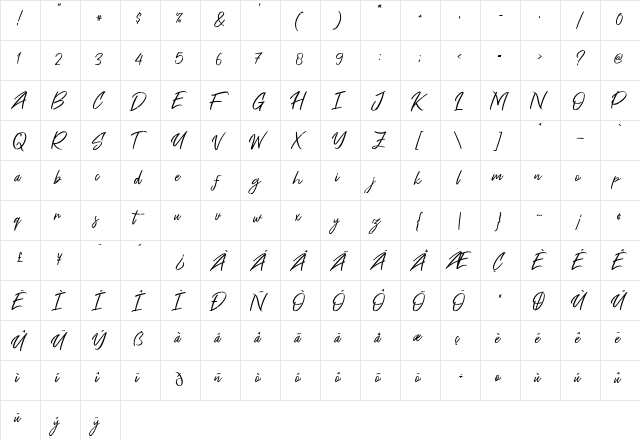
Free Pen Regular
Design Context for Free Pen Typeface
Free Pen is a composed and adaptable typeface that performs quietly and consistently across a wide range of design contexts.